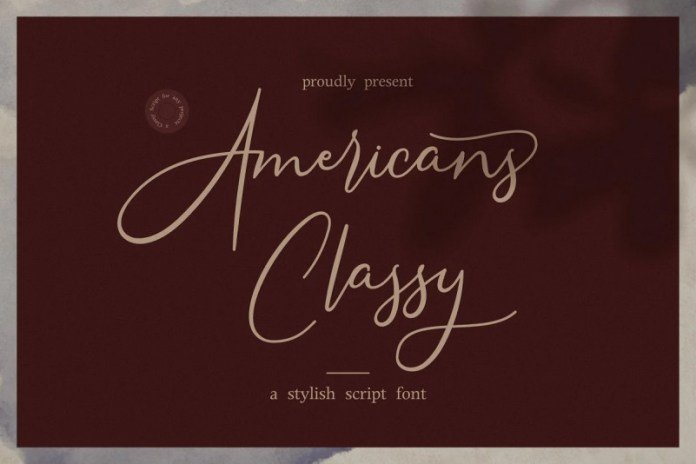
Americans Classy Font
Americans Classy Font is a handwritten script typeface, With a clean, high contrast stroke and fun characters. this font is great for your creative projects such as watermark on photography, and perfect for logos & branding, photography, invitation, watermark, advertisements, product designs, stationery, wedding designs,label, product packaging, special events or anything that need Signature taste.